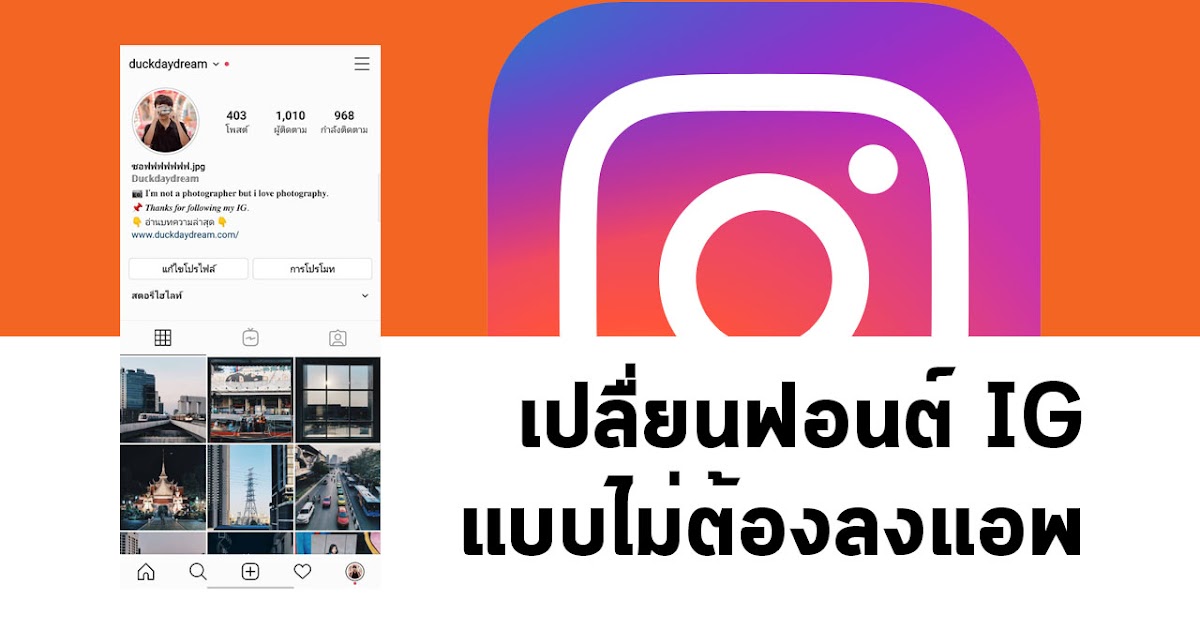
How To Change Font On Ig Story . In this blog, we’ll guide you on how to change fonts on instagram and explore two effective methods to access even more font options for your instagram. Instagram keeps adding new font styles to the app. How to change fonts in instagram stories. Learn how to change fonts on instagram in minutes with this easy step. Classic is perfect for general updates, announcements, or any story where the message needs to be clear and professional. Open instagram story mode for your profile, tap the text icon, and type your text. You can change the font style and size. Using instagram story fonts that match your brand is essential. If you want to get more views and followers to your instagram stories, changing the font can jazz up your posts and generate more interest.
You can change the font style and size. In this blog, we’ll guide you on how to change fonts on instagram and explore two effective methods to access even more font options for your instagram. Instagram keeps adding new font styles to the app. Classic is perfect for general updates, announcements, or any story where the message needs to be clear and professional. How to change fonts in instagram stories. If you want to get more views and followers to your instagram stories, changing the font can jazz up your posts and generate more interest. Learn how to change fonts on instagram in minutes with this easy step. Open instagram story mode for your profile, tap the text icon, and type your text. Using instagram story fonts that match your brand is essential.
How To Change Font On Ig Story Instagram keeps adding new font styles to the app. If you want to get more views and followers to your instagram stories, changing the font can jazz up your posts and generate more interest. How to change fonts in instagram stories. Using instagram story fonts that match your brand is essential. In this blog, we’ll guide you on how to change fonts on instagram and explore two effective methods to access even more font options for your instagram. You can change the font style and size. Learn how to change fonts on instagram in minutes with this easy step. Instagram keeps adding new font styles to the app. Open instagram story mode for your profile, tap the text icon, and type your text. Classic is perfect for general updates, announcements, or any story where the message needs to be clear and professional.
สอนเปลี่ยน Font ใน IG ให้สวยๆ เก๋ๆ แบบไม่ต้องลงแอพ How To Change Font On Ig Story Instagram keeps adding new font styles to the app. Learn how to change fonts on instagram in minutes with this easy step. Using instagram story fonts that match your brand is essential. Classic is perfect for general updates, announcements, or any story where the message needs to be clear and professional. You can change the font style and size. If. How To Change Font On Ig Story.
How do you change the font on your Instagram bio? Cool Mom Tech How To Change Font On Ig Story Open instagram story mode for your profile, tap the text icon, and type your text. You can change the font style and size. Learn how to change fonts on instagram in minutes with this easy step. Classic is perfect for general updates, announcements, or any story where the message needs to be clear and professional. Using instagram story fonts that. How To Change Font On Ig Story.
Bộ sưu tập 200 font Font iPhone Instagram story đảm bảo tạo sự bất ngờ How To Change Font On Ig Story If you want to get more views and followers to your instagram stories, changing the font can jazz up your posts and generate more interest. Classic is perfect for general updates, announcements, or any story where the message needs to be clear and professional. Open instagram story mode for your profile, tap the text icon, and type your text. Learn. How To Change Font On Ig Story.
IG STORY HACKS 2022 how to add a background when you share a feed How To Change Font On Ig Story If you want to get more views and followers to your instagram stories, changing the font can jazz up your posts and generate more interest. How to change fonts in instagram stories. In this blog, we’ll guide you on how to change fonts on instagram and explore two effective methods to access even more font options for your instagram. Using. How To Change Font On Ig Story.
How to Change Fonts on Instagram Everything You Need to Know How To Change Font On Ig Story If you want to get more views and followers to your instagram stories, changing the font can jazz up your posts and generate more interest. In this blog, we’ll guide you on how to change fonts on instagram and explore two effective methods to access even more font options for your instagram. Classic is perfect for general updates, announcements, or. How To Change Font On Ig Story.